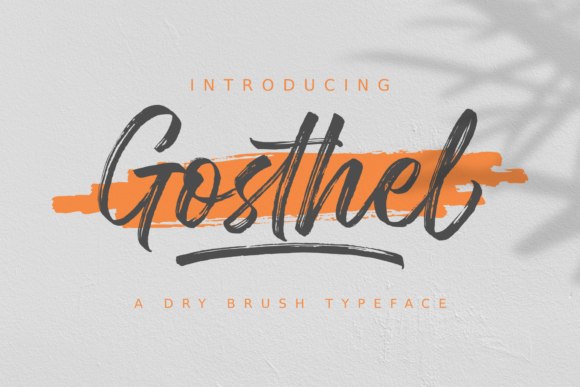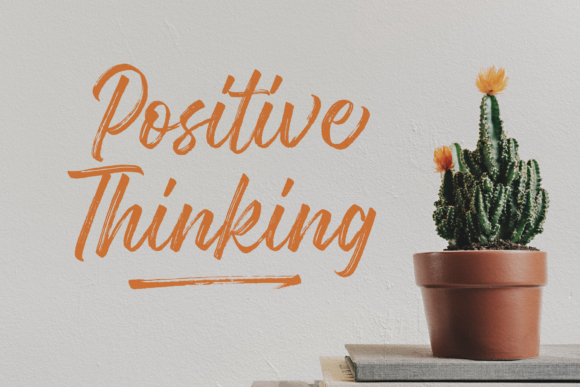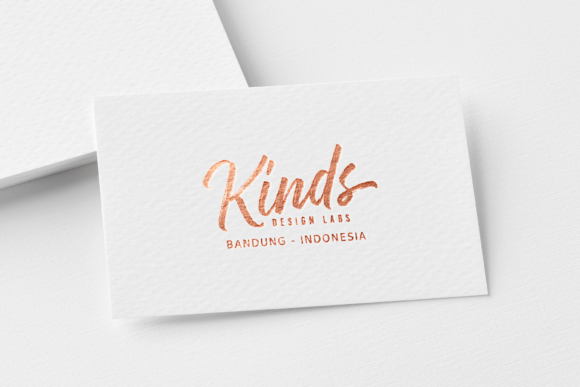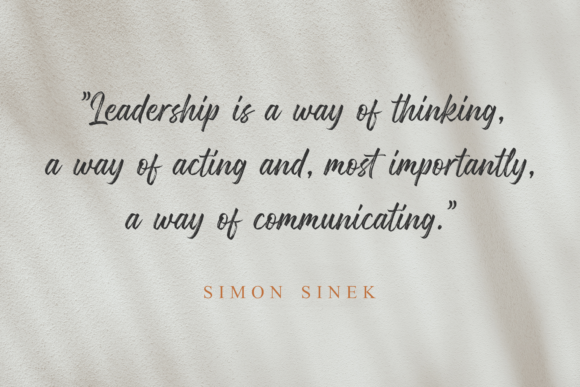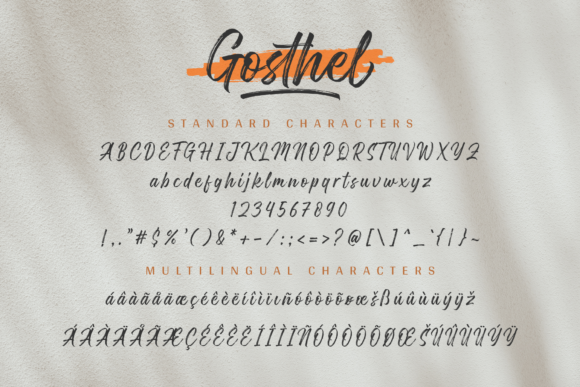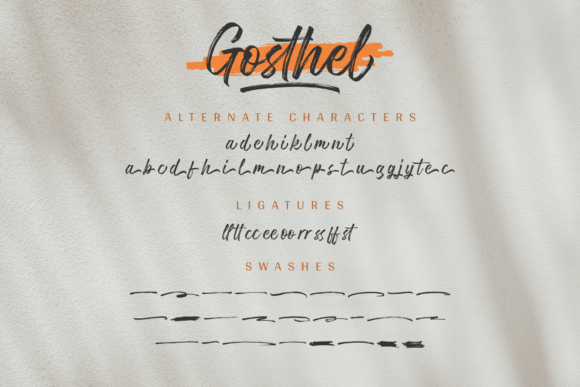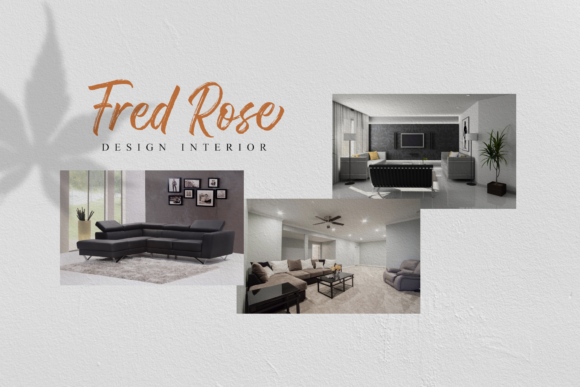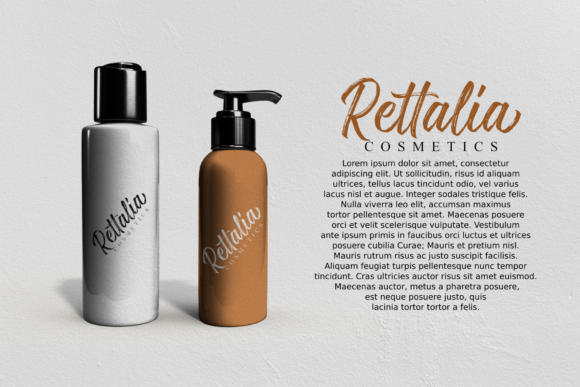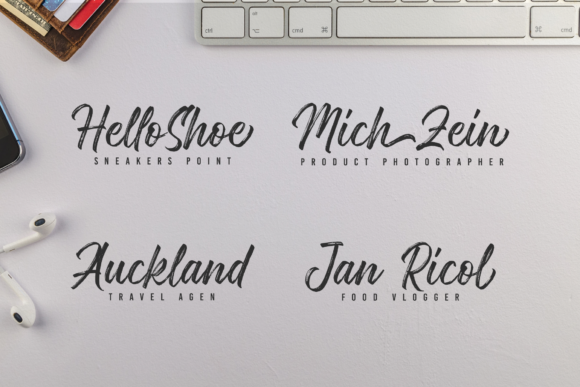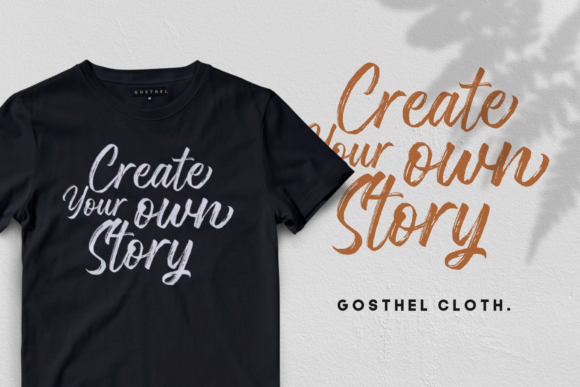
Gosthel Font
About Gosthel Font
Gosthel is a script font that is carefully handwritten with a flowing brush pen. Use it for any design project that requires a personalized appearance!